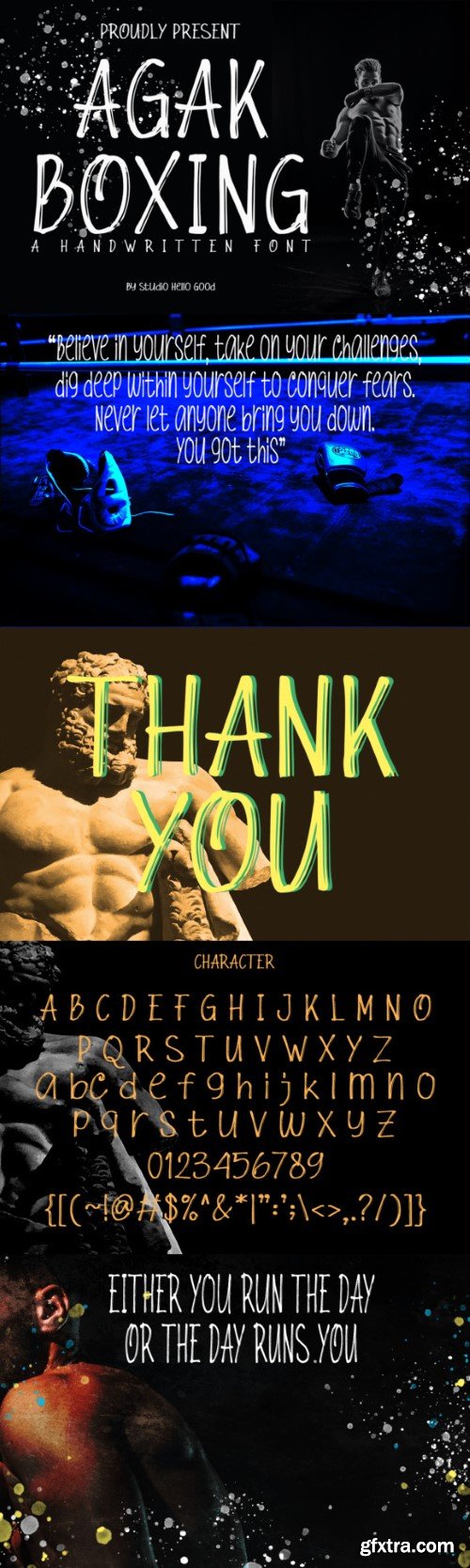
阿吉阿布 boxing 字体
Introducing Agak Boxing, a dynamic and impactful font that transcends traditional boundaries, making it the perfect choice for a diverse range of creative ventures, including books, cartoons, movies, and clothing. Agak Boxing brings a powerful and stylish edge to your projects, combining the essence of athleticism with contemporary design.